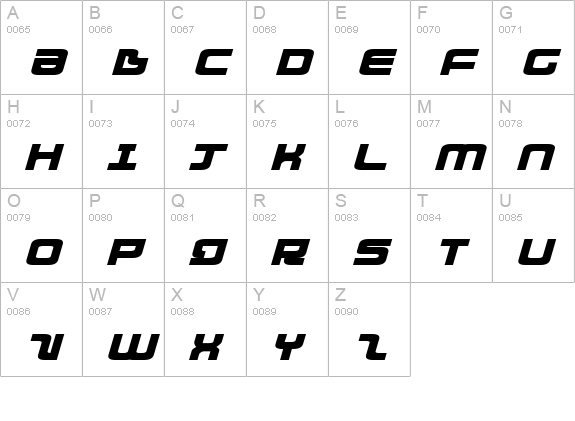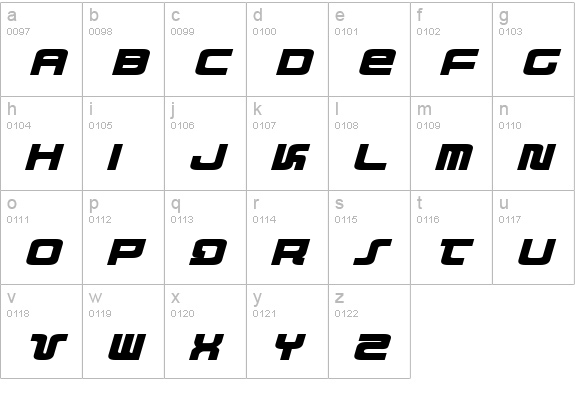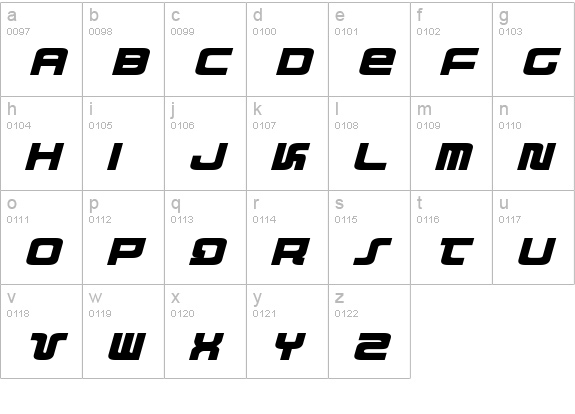
Direktor Expanded Italic is a distinctive, extended-width, italic variant in the Direktor typeface family \xE2\x80\x94 well suited to design and typography projects.
Direktor Expanded Italic font is a modern and sleek typeface that exudes professionalism and sophistication. Its italicized design adds a touch of elegance to any project, making it perfect for branding, editorial design, and more. The bold strokes and unique letterforms of Direktor Expanded Italic make it stand out from the crowd, ensuring that your designs make a lasting impression. And the best part? This stunning font is available for free download at FontsMarket.com. Don't miss out on the opportunity to enhance your creative projects with the striking Direktor Expanded Italic font - download it today and take your designs to the next level!